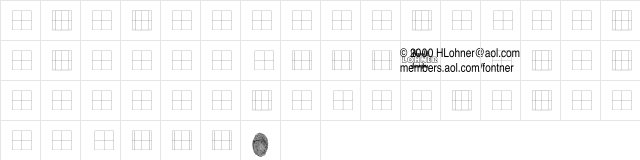
Koch Quadrat Guides Regular
Design Context for Koch Quadrat Guides Typeface
Koch Quadrat Guides offers clean, dependable letterforms without strong stylistic allegiance, making it a practical choice for designers who need flexibility.